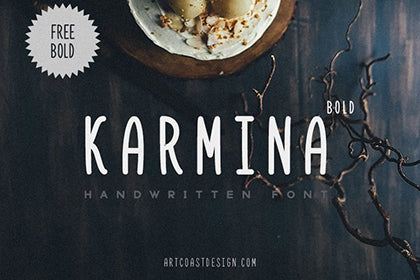
Free Karmina Handwritten Font
We're glad to feature this dazzling free karmina – handwritten font. This is a downloadable free typeface file brought to you by Font Space. Easily amaze your audience with this cool font and make your graphic designs pop up from the crowd.